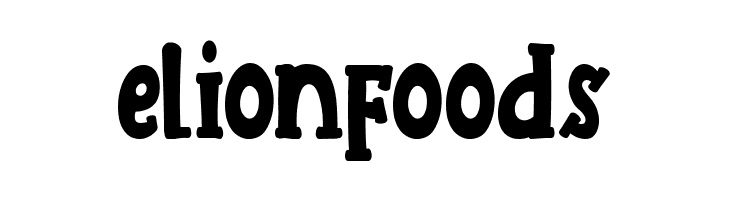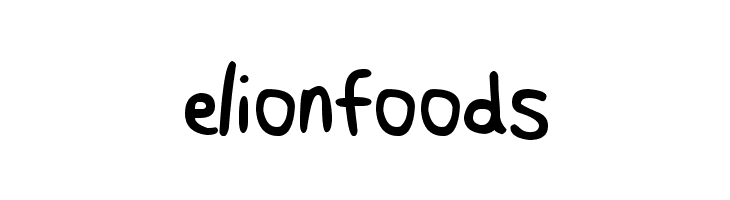
A decorative font made from human figures forming each letter and character.
A decorative font made of human figures forming letters and numbers in a Renaissance style.
A flowing, cursive script font with elegant loops and a modern touch.
A bold, edgy font with sharp, angular lines and a hand-drawn quality.
A modern sans-serif font with clean lines and excellent readability.
A bold, modern typeface with strong geometric shapes and uniform strokes.
A bold, italicized font with thick strokes and a modern, dynamic style.
A modern, italic sans-serif font with clean lines and balanced proportions.
A modern, light sans-serif font with low contrast and excellent readability.
A sleek, modern, light italic font with smooth curves and a minimalistic design.
A modern sans-serif font with geometric shapes and balanced proportions.
A sleek, modern sans-serif typeface with a slight italic slant and medium weight.
A sleek, minimalist font with thin, uniform strokes and excellent readability.
A sleek, thin, and italicized modern font with clean, consistent strokes.
A pixelated, grid-based font with a digital, modern aesthetic.
A bold, angular font with sharp edges and dynamic style.
A flowing, cursive script font with elegant loops and flourishes.
A playful, bold font with hand-drawn, irregular letterforms.
A bold, modern font with thick strokes and rounded edges, perfect for impactful headlines.
A playful and bold font with irregular, dynamic letterforms.
A bold, playful handwritten font with rounded, irregular characters.
A modern serif font with elegant, bold characters and a dynamic slant.
An elegant, flowing script font with graceful loops and a sophisticated charm.
An elegant, flowing script font with dynamic curves and decorative flair.
A bold, dynamic font with diagonal line patterns for a modern, energetic look.
A playful and lively script font with flowing cursive letterforms.
A playful, handwritten-style font with elegant, flowing lines.
A playful, eclectic font with bold, varied characters and a whimsical style.